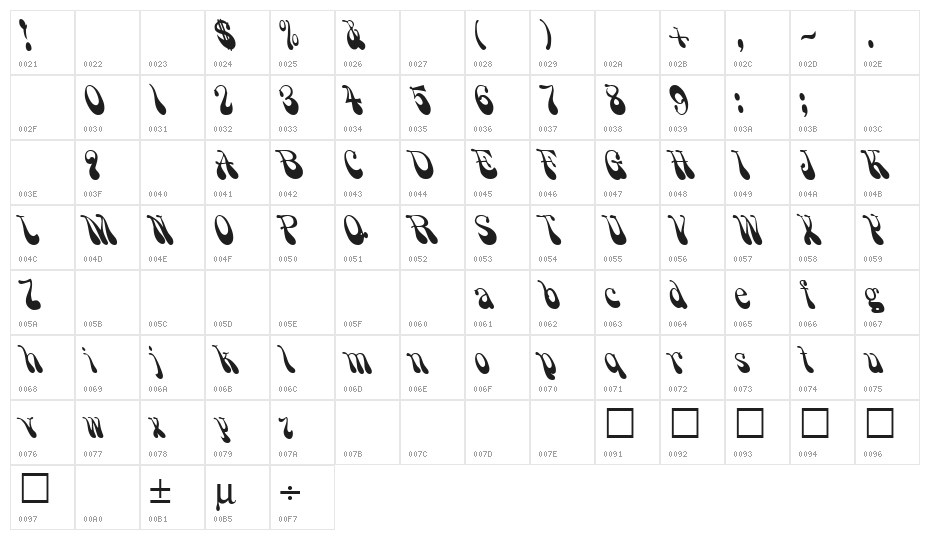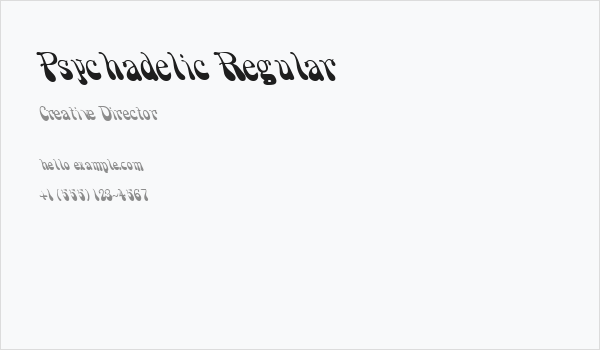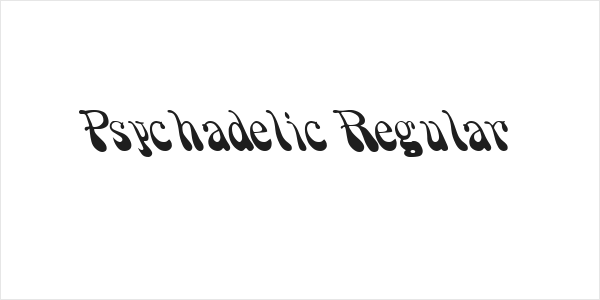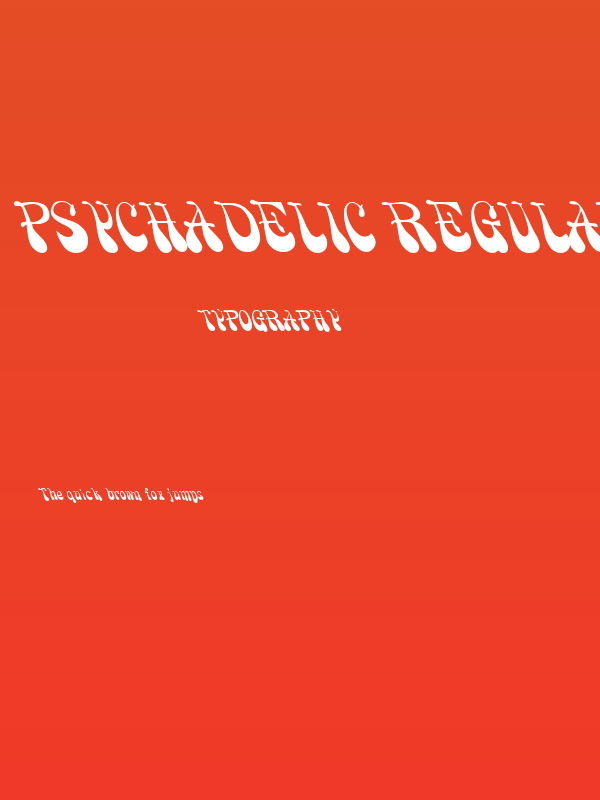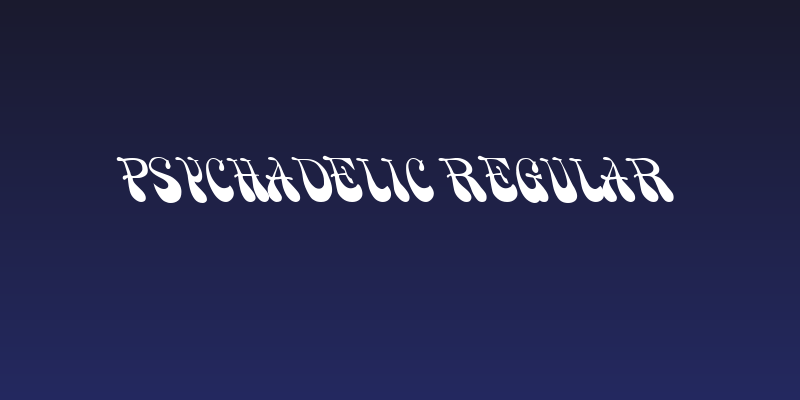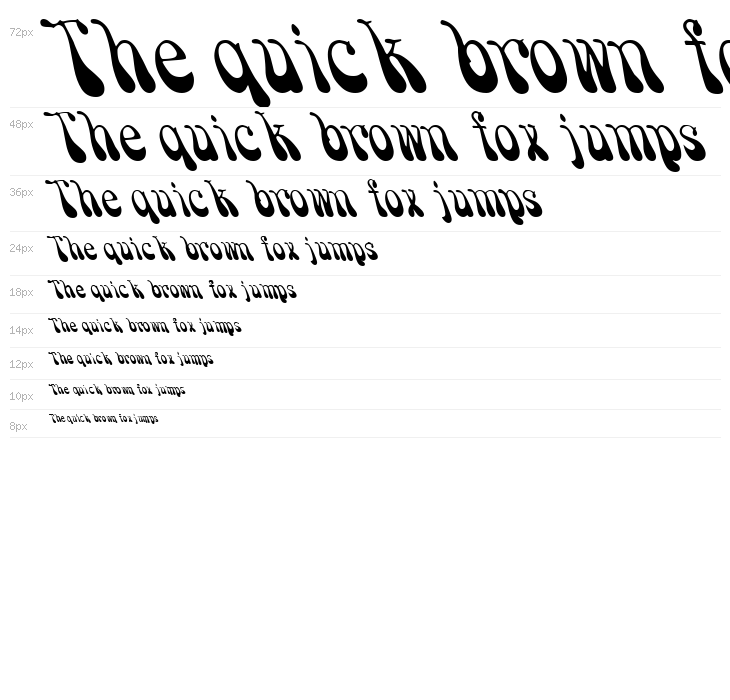
Psychadelic Regular Font
Psychadelic Regular Description
This font features a bold, wavy design that evokes a sense of movement and fluidity, reminiscent of the psychedelic art style of the 1960s and 70s. The characters are heavily stylized with exaggerated curves and thick strokes, creating a dynamic and eye-catching appearance. The uppercase and lowercase letters maintain a consistent style, with the uppercase being slightly more pronounced. Numbers and special characters follow the same whimsical design, making them stand out. The overall look is playful and artistic, perfect for projects that require a bold statement.
Overall StyleVintage
Use CaseHeadlines, Logos
Proposed ProjectsIdeal for music festival posters, retro-themed designs, album covers, and creative branding projects.